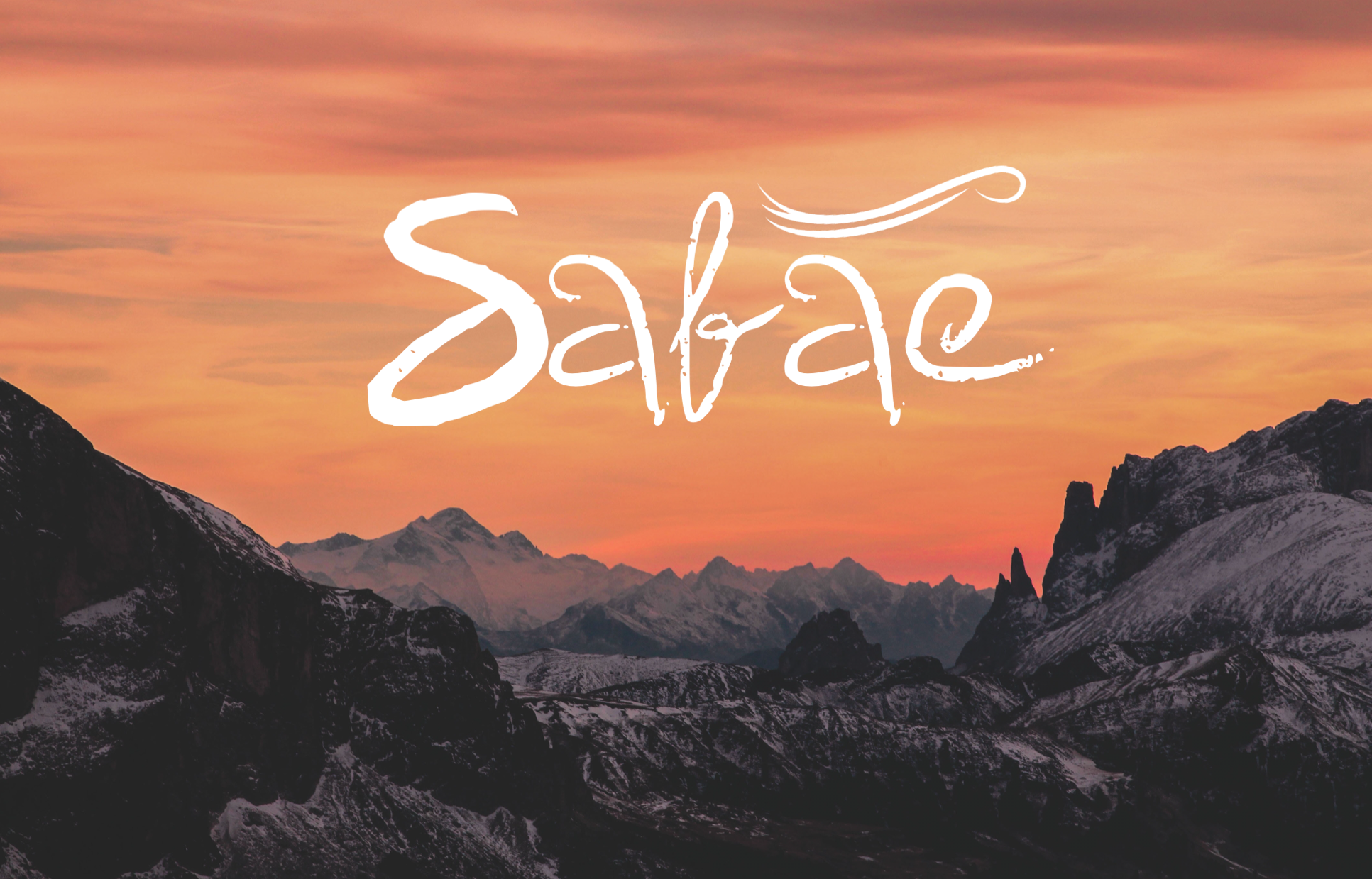
Safae Handwritten Font
Safae is a handwritten font inspired by the textures of the mountains. Ideal for logos, handwritten quotes, product packaging, header, poster, merchandise, social media & greeting cards.